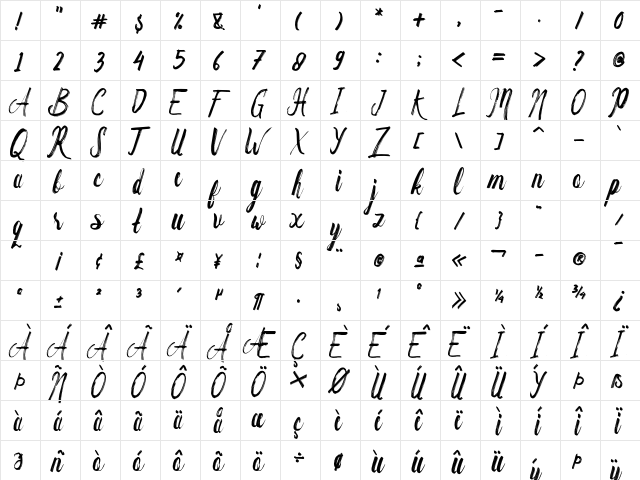
Anny_Graces Regular Font Preview
Anny_Graces Regular
Design Context for Anny_Graces Typeface
Anny_Graces is a composed and adaptable typeface that performs quietly and consistently across a wide range of design contexts.